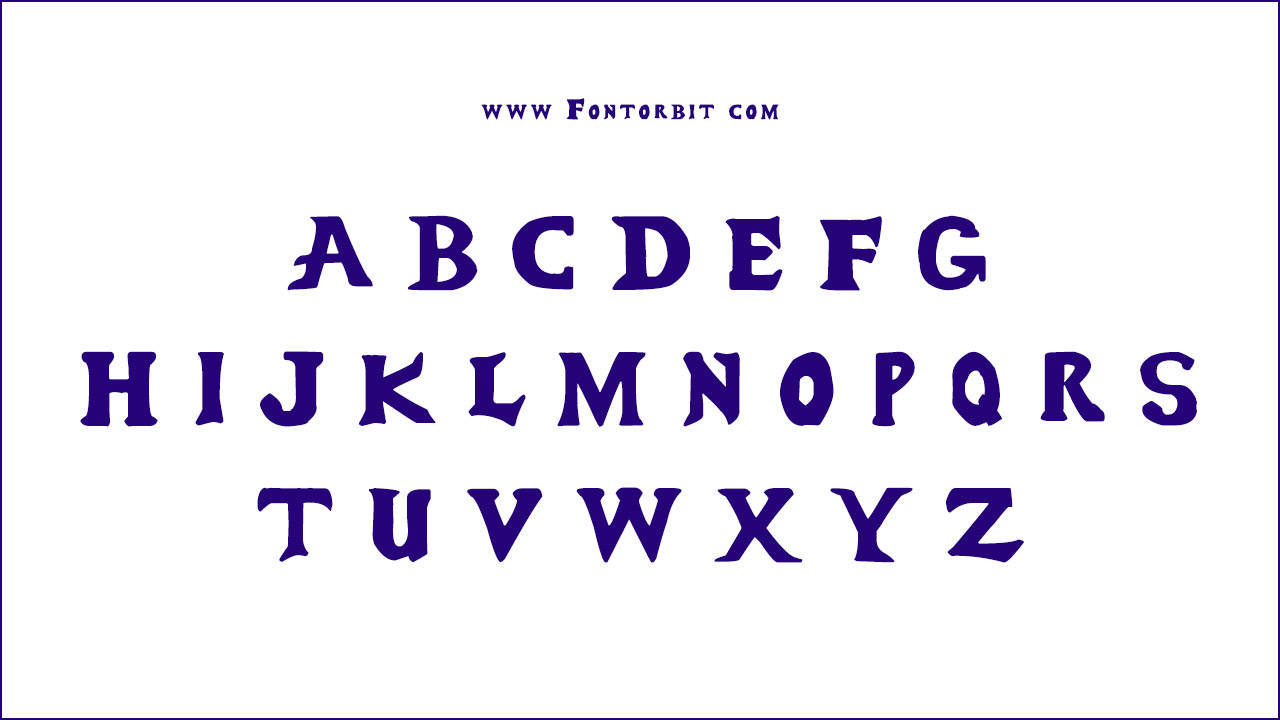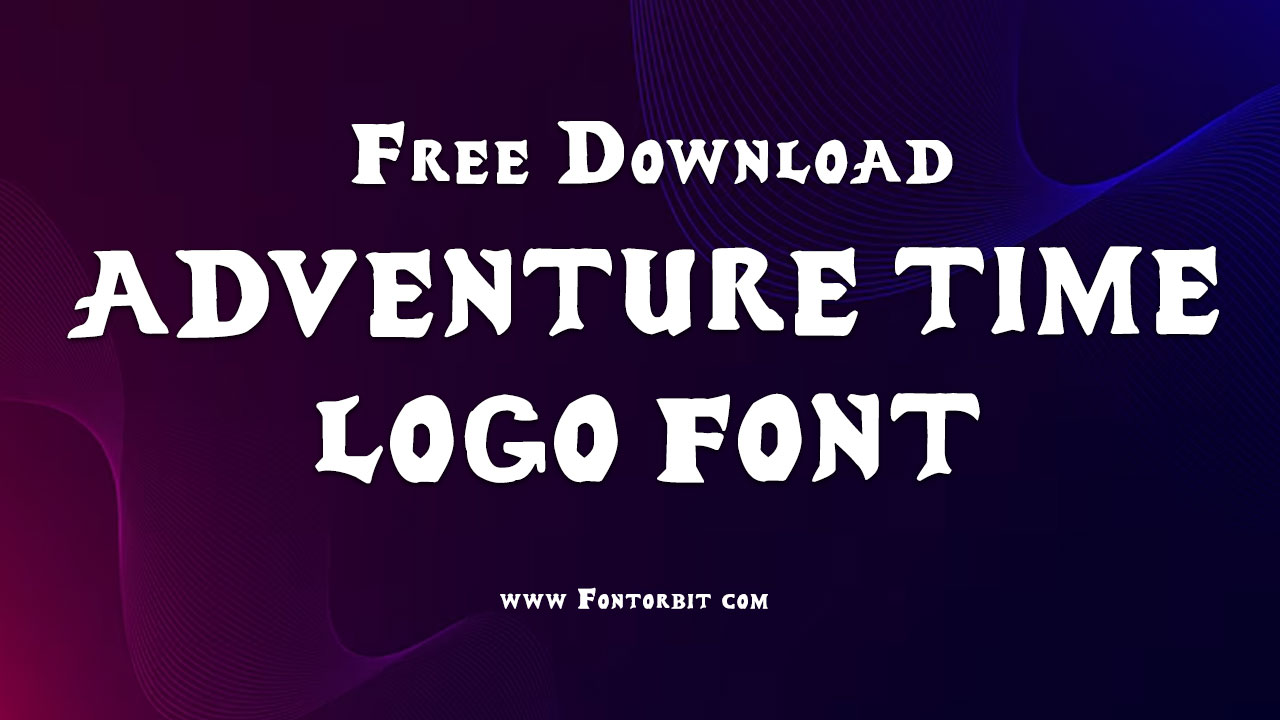
The Adventure Time Logo Font captures the whimsical spirit of the Adventure Time series. Designed in TTF format, it supports Basic Latin and Latin-1 Supplement, covering multiple languages. Perfect for adding a playful touch to any project, this font brings the imaginative world of Finn and Jake to life.
The Adventure Time Logo Font is a display typeface that captures the playful and whimsical essence of the Adventure Time series. It includes Unicode Blocks, specifically covering Basic Latin and Latin-1 Supplement character sets. This distinctive display typeface is available in multiple styles.
The font can be utilized creatively in trailers and promotional videos to make the text visually appealing. It is also suitable for murals and website design, where bold and distinctive typography can enhance the overall look.
Additionally, the font is ideal for title sequences and end credits in videos, providing a strong visual impact. Moreover, it can be effectively employed in web page design to create a unique and engaging user experience.
- 3d logos
- Trailers and promotional videos
- Murals
- Website design
- Title sequences and end credits
- Web page design
The Adventure Time Logo Font Found In Use
The Adventure Time Logo Font is used in various promotional materials and creative projects related to the series. It can be seen in title sequences, web design, and other media.
This font serves as more than just a typographic tool; it is a bridge to the imaginative world of Adventure Time. It enables fans and designers alike to infuse their work with the series’ distinctive style, capturing the spirit of Finn, Jake, and their fantastical adventures.
Whether used for personal projects, fan art, or thematic designs, the Adventure Time Logo Font provides a playful, creative touch that resonates with the show’s legacy.
1.What Is The Adventure Time Logo Font?
A display typeface designed by Finn Wittrock, known for its unique style inspired by the Adventure Time series.